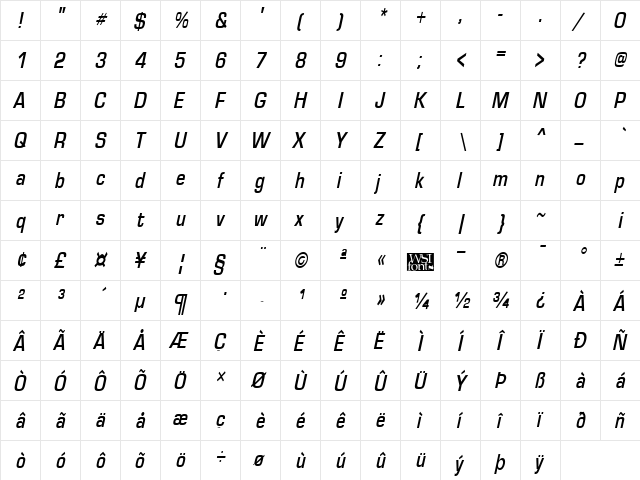
EuroseCond Italic Font Preview
Design Context for EuroseCond Typeface
EuroseCond is a composed and adaptable typeface that performs quietly and consistently across a wide range of design contexts. The slanted form adds forward momentum and visual energy. The condensed width makes it efficient for tight spaces without sacrificing legibility.
Pro Tip: Try EuroseCond for annotation and caption copy alongside an upright companion — the contrast in angle creates a dynamic but ordered typographic system.